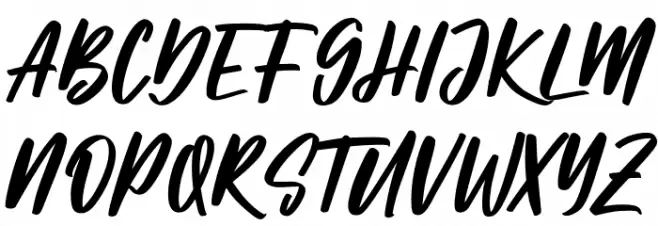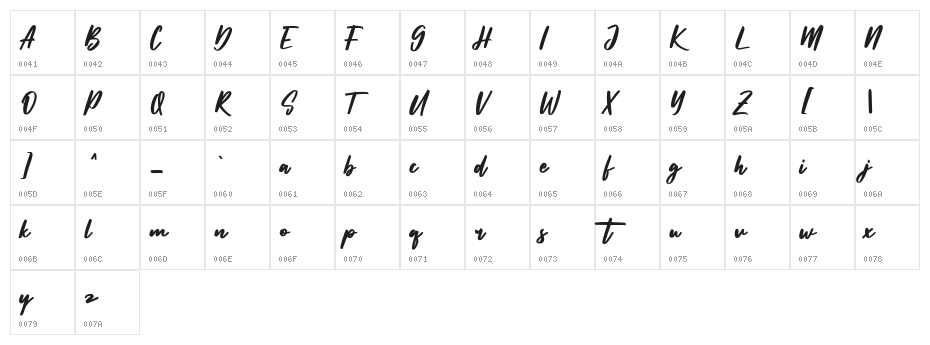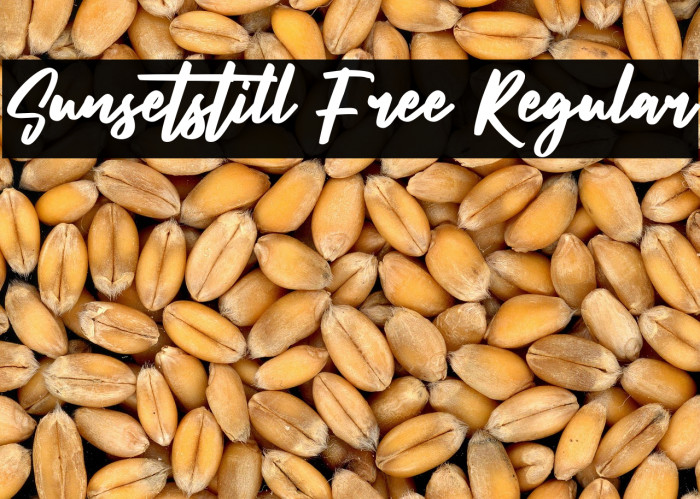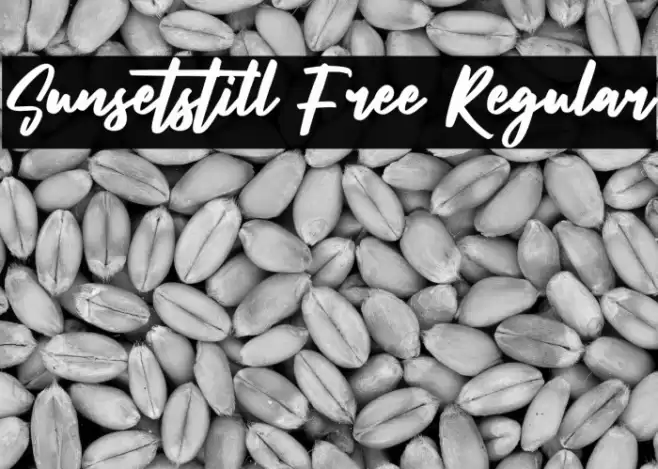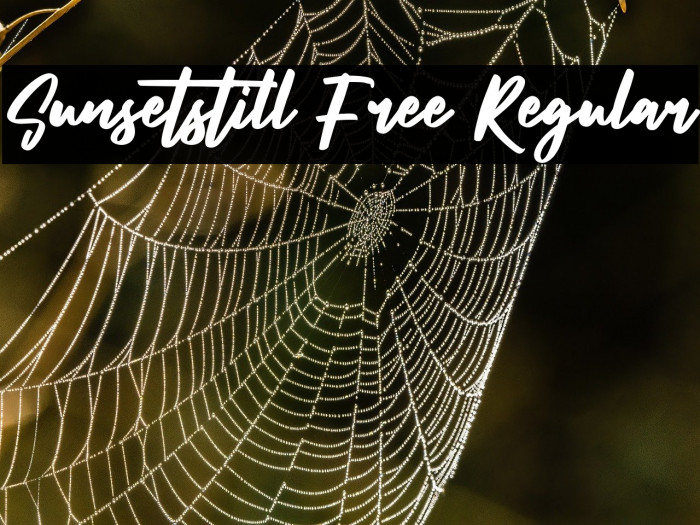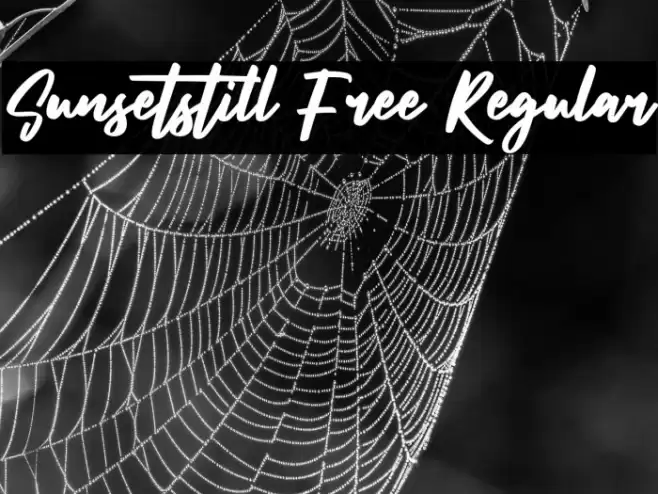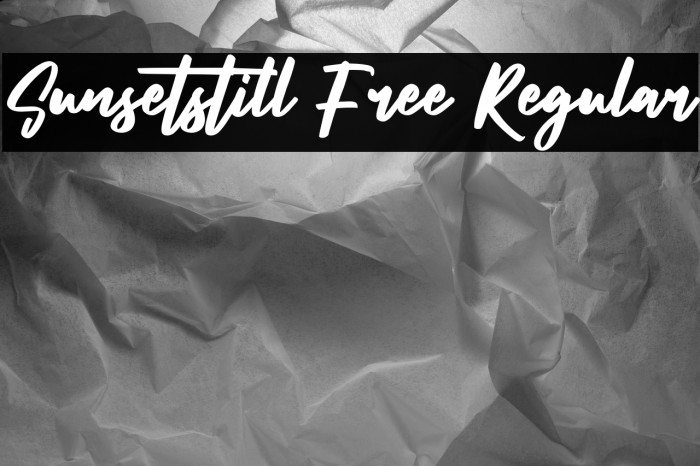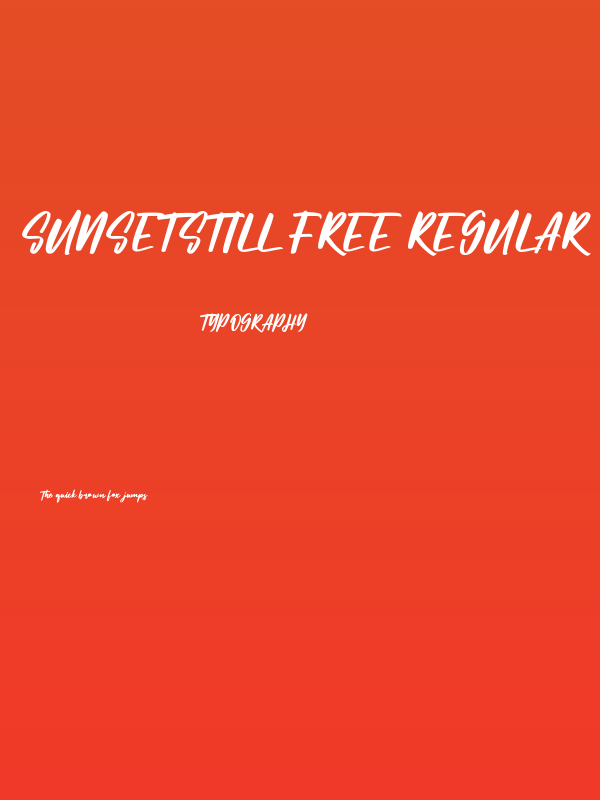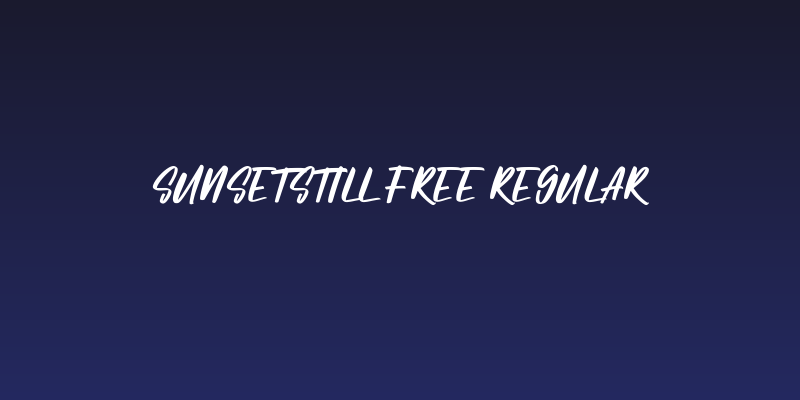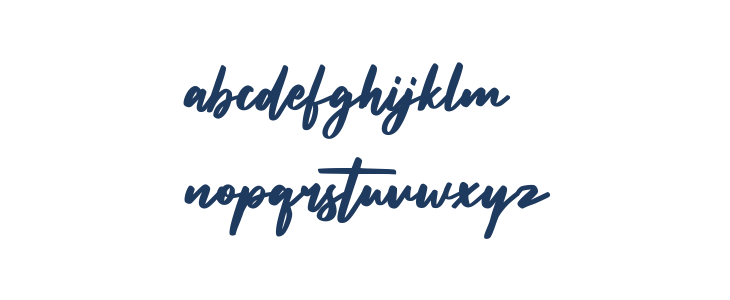
Sunsetstill Free Regular Font
Sunsetstill Free Regular Description
This font features a bold, handwritten style with a modern flair. The letters are slightly slanted, giving a dynamic and energetic feel. The strokes are thick and consistent, creating a strong visual impact. The uppercase letters are particularly striking, with unique flourishes and curves that add character. The lowercase letters maintain a cohesive look, complementing the uppercase with their smooth, flowing lines. This font is versatile, suitable for a variety of creative projects where a personal touch is desired.